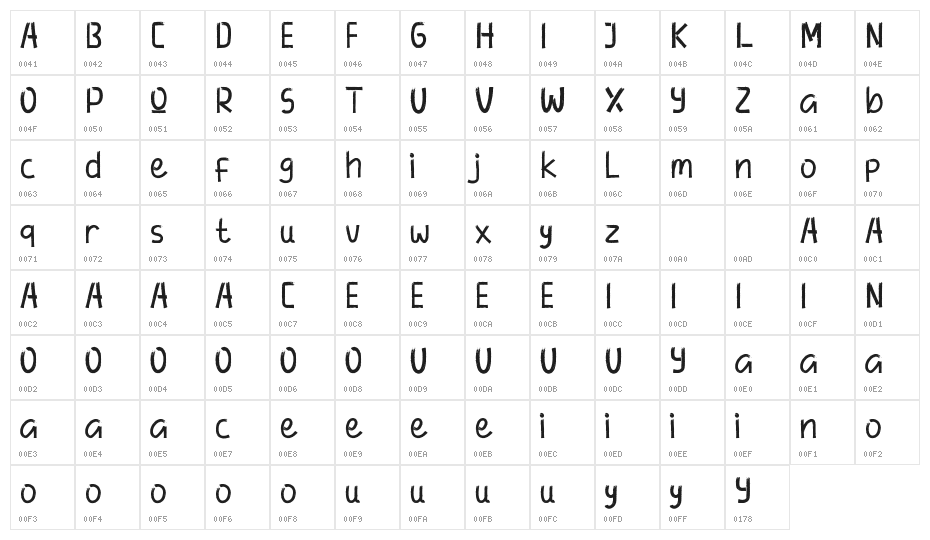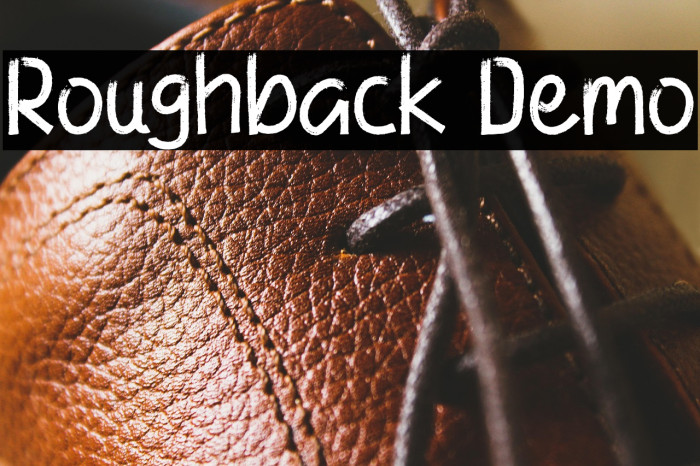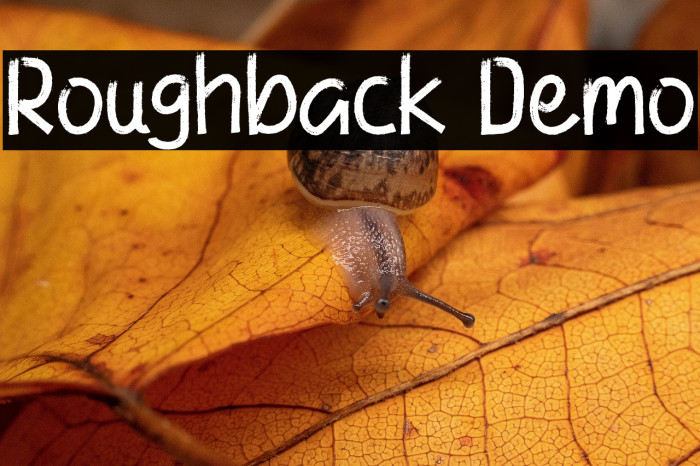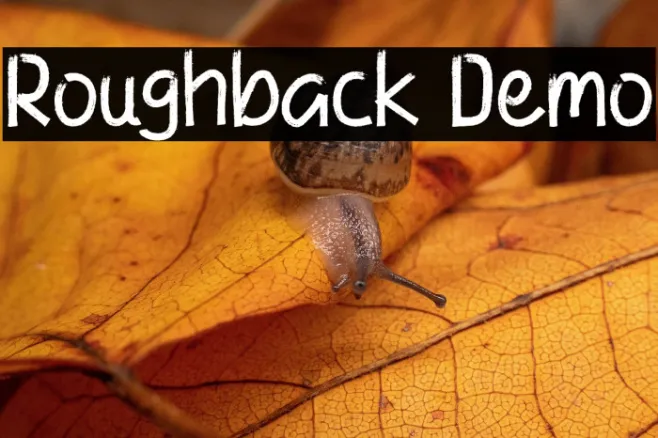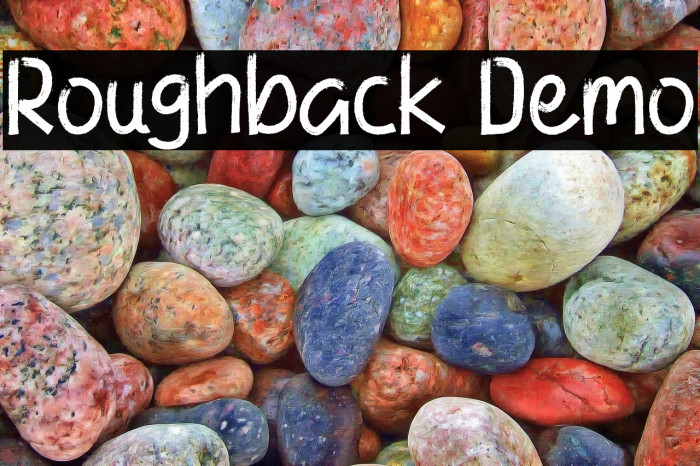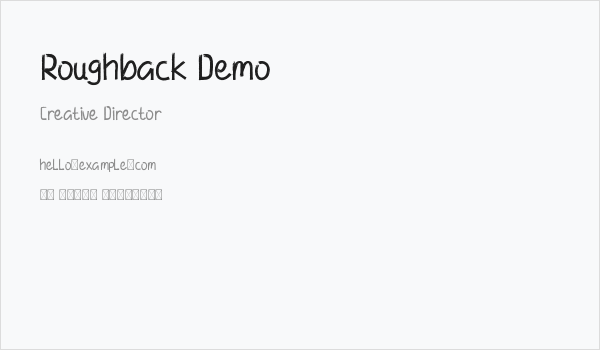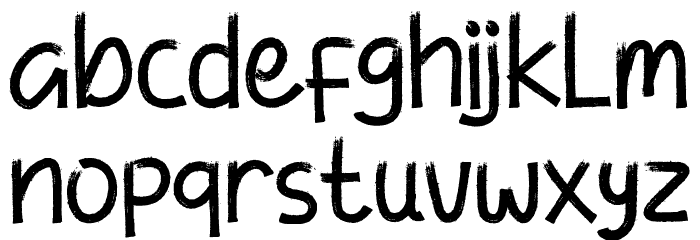
Roughback Demo Font
Roughback Demo Description
This font features a rugged, hand-drawn aesthetic with a textured, brush-like appearance. The characters are bold and slightly irregular, giving them a dynamic and energetic feel. The uppercase letters are tall and narrow, while the lowercase letters maintain a consistent style with a slightly more rounded form. The numbers and special characters follow the same rough, textured style, adding to the overall cohesive look. This font's unique, distressed appearance makes it stand out, offering a sense of creativity and individuality.
| Proposed Projects | Ideal for projects that require a creative, artistic touch, such as posters, album covers, or branding for edgy or alternative products. |